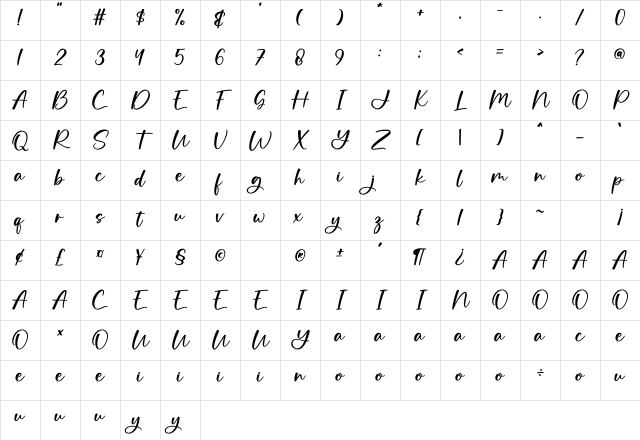
Margaret Regular Free Font
Margaret Regular
Foundry: Graphix Line Studio
Designer: Aldi Raya Pradipta
Margaret Family
Margaret Regular
Design Context for Margaret
Margaret is a composed and adaptable typeface that performs quietly and consistently across a wide range of design contexts.